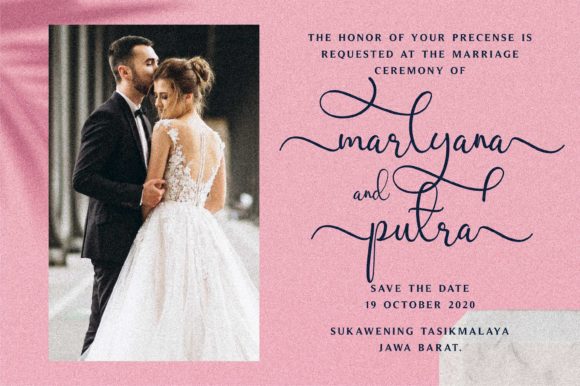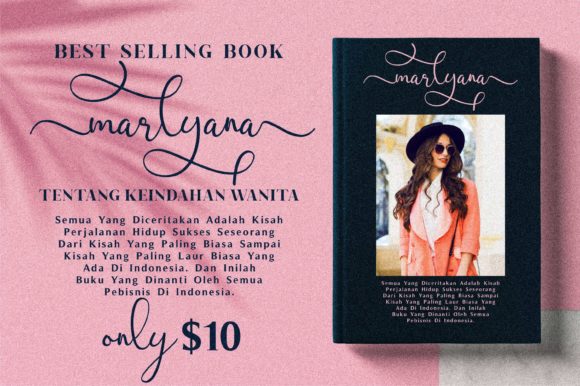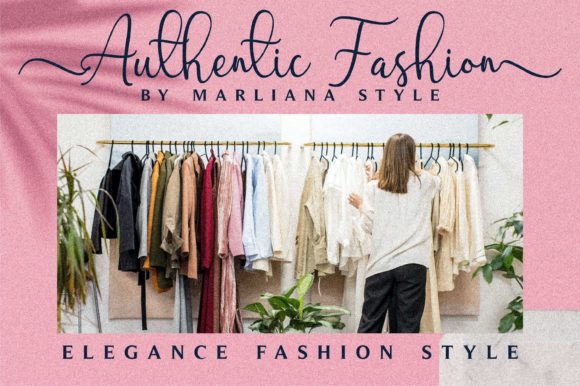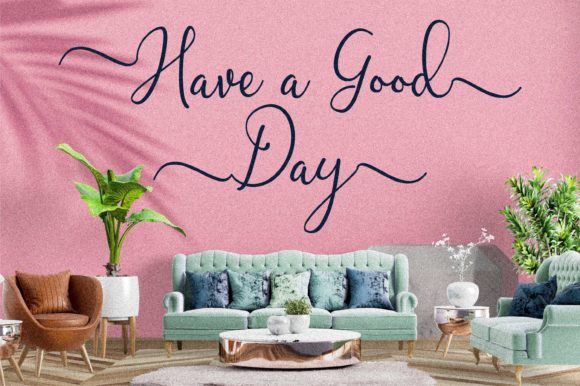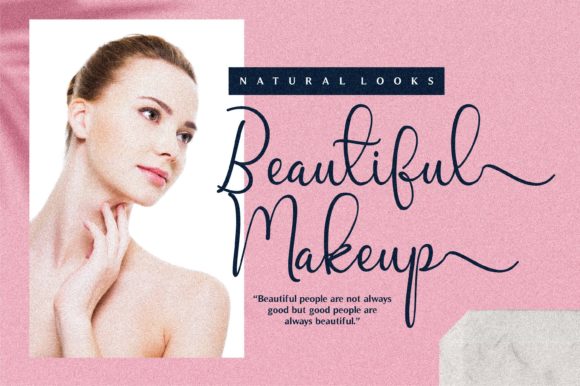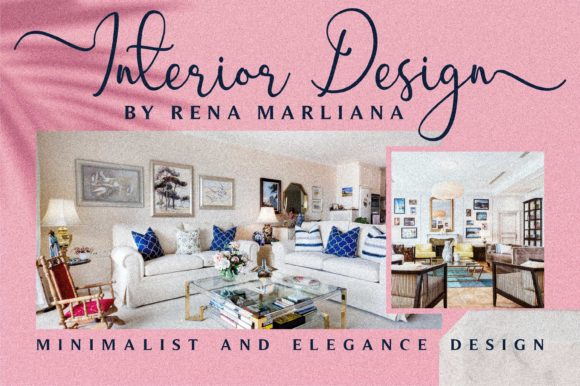
Introduction to Marlyana Font
Have you ever been working on a creative project, pouring your heart and soul into it, only to realize that the font just doesn’t quite fit the vibe you’re going for? That’s exactly what happened to me when I stumbled upon the Marlyana Font. I was designing a custom invitation for a friend’s wedding, and I wanted something that would make it truly special. That’s when I discovered the Marlyana Font, a stunning handwritten font that added a touch of elegance and sophistication to my design.
As designers, we know how important it is to have access to high-quality design resources that can help us bring our creative vision to life. The Marlyana Font is just that – a valuable addition to any designer’s toolkit. With its PUA encoded features, you can access all of the glyphs and swashes with ease, making it perfect for crafting projects that require a personalized look.
Key Features of Marlyana Font
- High-quality, elegant script font suitable for creative projects and design resources.
- Features a transparent background, making it easy to layer over images or other design elements.
- Designed with a sophisticated, handwritten feel, perfect for adding a touch of elegance to any design.
- Available in a range of sizes, with a resolution of up to 300 DPI for high-quality printing.
- Perfect for use in creative projects, such as wedding invitations, quotes, and other design elements.
Honest Review: Marlyana Font
One of the things that works well about the Marlyana Font is its elegant and sophisticated style. It’s perfect for projects that require a touch of luxury and sophistication, such as invitations, brochures, or even branding materials. The font is also highly customizable, allowing me to adjust the size, color, and even add a transparent background to suit my needs.
Here are some of the key features that I liked about the Marlyana Font:
- Elegant and sophisticated style
However, I did encounter some limitations with the Marlyana Font. The font family is relatively small, which means it may not be as versatile as some other fonts on the market. Additionally, the font’s design may not be suitable for projects that require a bold or playful tone.
Overall, I was impressed with the Marlyana Font, and I would definitely recommend it for creative projects that require a touch of elegance and sophistication. While it may have some limitations, the font’s high-quality design and customization options make it a valuable design resource. ✨
Tips for Getting the Most Out of Marlyana Font
To get the most out of the Marlyana Font, use it with a transparent background to create visually appealing designs. Experiment with different font sizes, colors, and styles to find the perfect combination for your project.
Common Use Cases for Marlyana Font
The Marlyana Font is suitable for a wide range of creative projects, including logos, business cards, brochures, and social media graphics. Its high-quality design makes it an ideal choice for professional and personal projects alike.